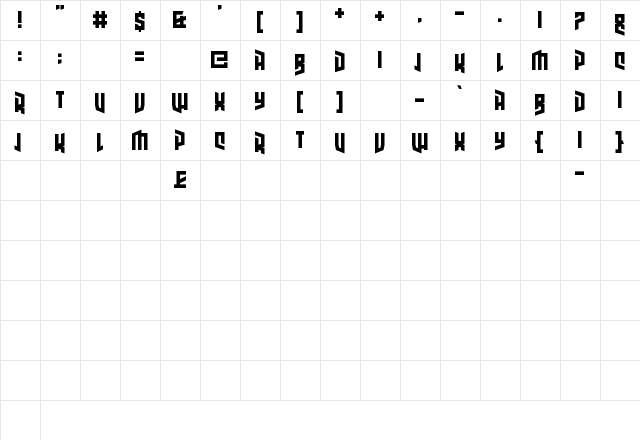
High Jinks Regular
Design Context for High Jinks Typeface
High Jinks is a composed and adaptable typeface that performs quietly and consistently across a wide range of design contexts.